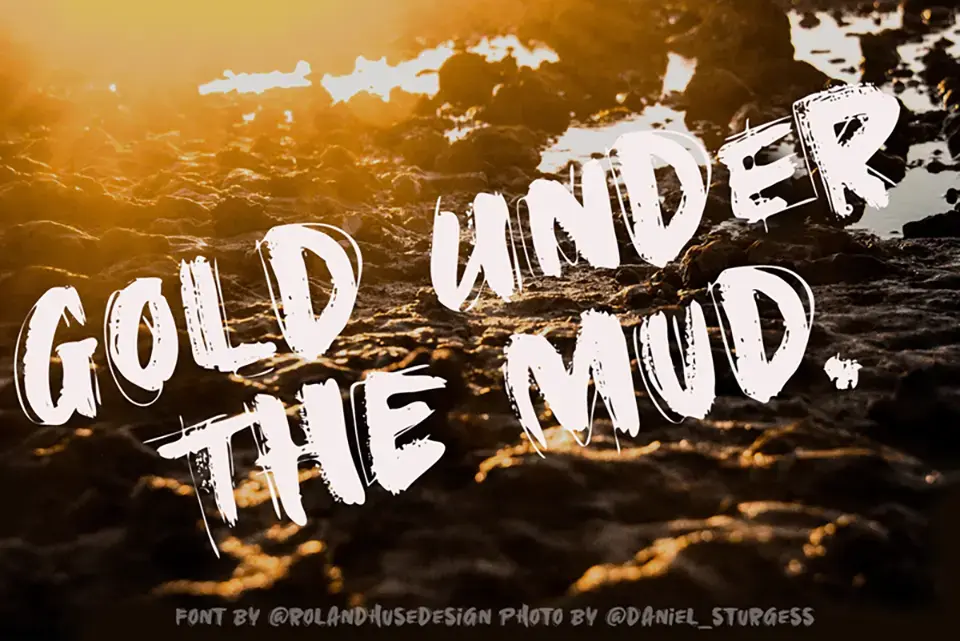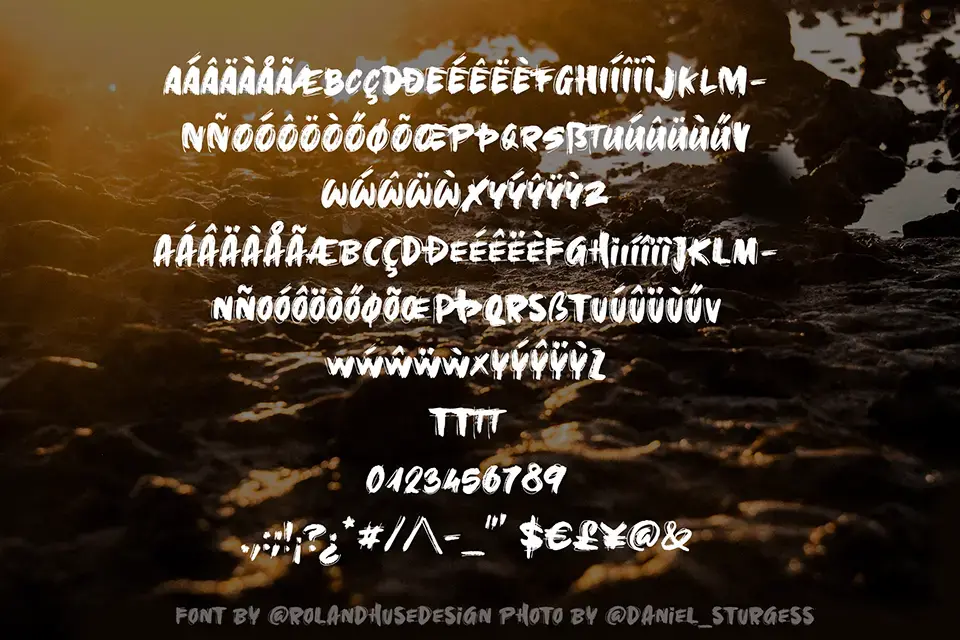
Gold Under The Mud Font
Gold Under The Mud is a rugged, hand-drawn display font defined by heavily textured strokes and an exclusive all-caps structure. The designer cleverly mapped alternate glyphs to uppercase and lowercase slots, allowing you to mix them and avoid unnatural repeating letters. Its aggressive, unpolished aesthetic leans into a grunge-heavy mood that commands attention. This typeface shines in indie rock graphics, alternative streetwear branding, or punchy poster headlines that demand raw attitude. However, due to its intense distressing and heavy visual weight, it struggles significantly with legibility in small sizes or standard body copy. It is designed to make a loud visual statement, meaning it completely falls apart if used in minimalist editorial layouts.
Indie rock concert posters
Alternative streetwear apparel
Distressed headline typography
Edgy beverage packaging
Extensive body text paragraphs
Clean corporate identity design
Small print on physical goods
Formal event invitations
Perfect for fashion, headline, and music, with a bold and decorative style.